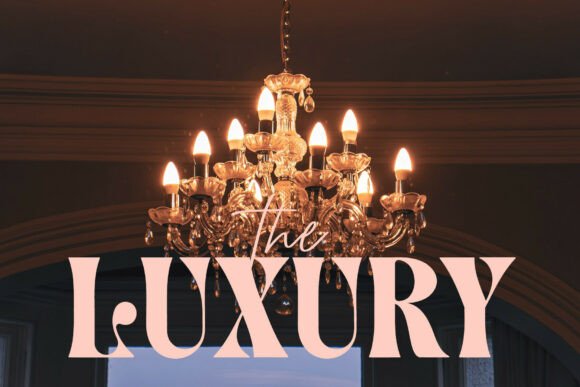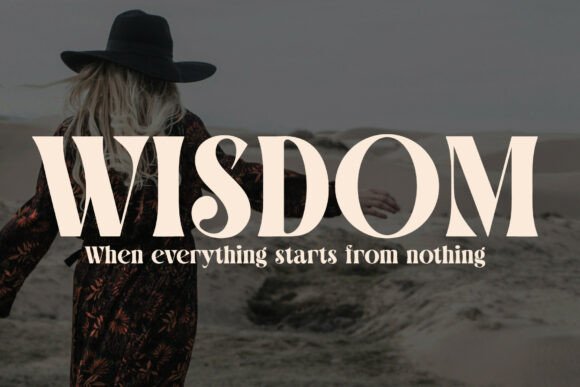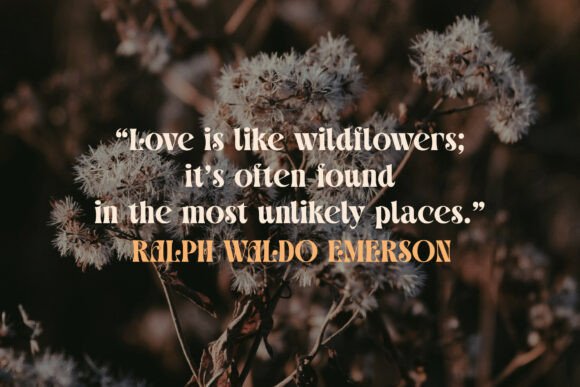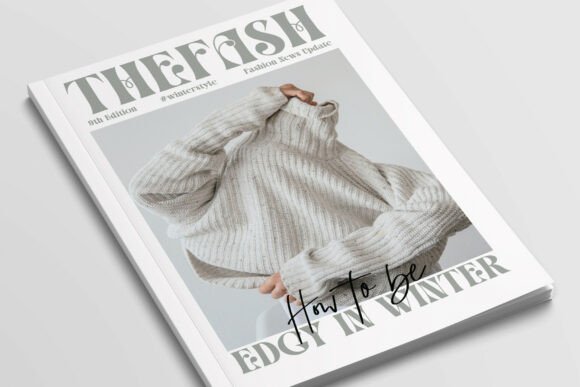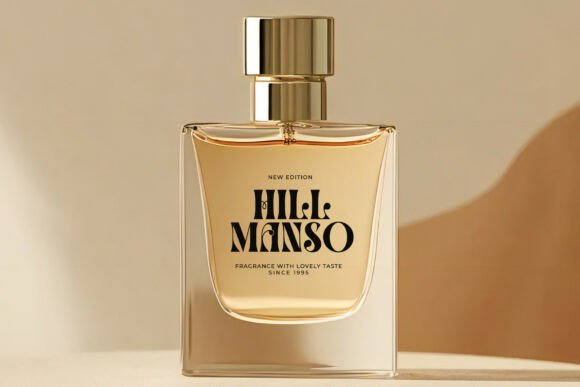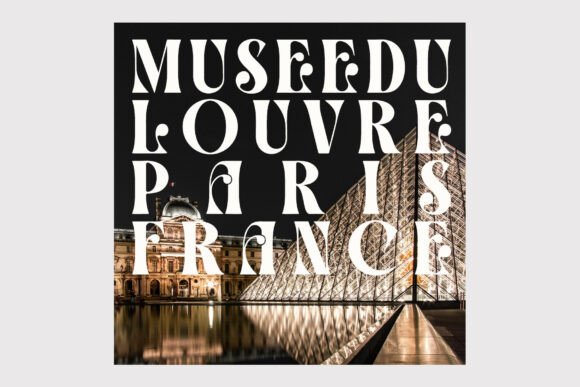
Unlock the Elegance of Calote Font
Have you ever stared at a beautiful piece of typography and felt an instant rush of inspiration? For designers, those ‘aha’ moments are the spark that ignites creativity. And what’s more alluring than the perfect font to bring your vision to life? Enter Calote Font, a modern and stylish serif font that exudes classy, beauty, and luxury.
Calote Font is designed to add an air of sophistication to any project, from logos and branding to wedding invitations and signage. Its striking contrast of stroke adds an extra layer of elegance, making it the perfect choice for designers who crave a modern vintage touch. Whether you’re a seasoned pro or just starting out, Calote Font is a valuable addition to your design arsenal, guaranteed to elevate your work to new heights.
- Unique Characteristics: Calote font is designed with a modern and elegant aesthetic, featuring clean lines, subtle curves, and a unique blend of serif and sans-serif elements.
Designer Review: Calote Font
After using the Calote font for a project, I wanted to share my honest thoughts on its strengths and weaknesses.
- The Calote font has a unique and elegant feel to it, perfect for projects that require a touch of sophistication.
- The font’s letterforms are well-balanced, making it easy to read even at smaller sizes.
- It has a wide range of weights and styles, allowing for versatility in design applications.
- The font may not be the best choice for projects that require a bold, attention-grabbing font. Its elegant feel can make it seem too subtle.
- The font’s x-height could be adjusted for better legibility, especially at smaller sizes.
- It may not be suitable for projects that require a lot of customizations, as it can be quite finicky.
Overall, the Calote font is a solid choice for projects that require a touch of elegance and sophistication. While it has its limitations, it’s a great option for designers who want to create a unique and refined visual identity. With some careful consideration of its strengths and weaknesses, the Calote font can be a valuable addition to any design toolbox.
Tips for Getting the Most Out of Calote Font
For best results, use Calote Font in conjunction with a clean and minimalist design aesthetic. The font’s elegant and sophisticated feel works well in high-end branding, wedding invitations, and luxury product packaging. Experiment with different font sizes and color combinations to create a unique look that suits your design needs.
Calote Font is ideal for use in:
– Luxury branding and marketing materials
– High-end product packaging
– Fine art and design projects
– Editorial and publishing applications